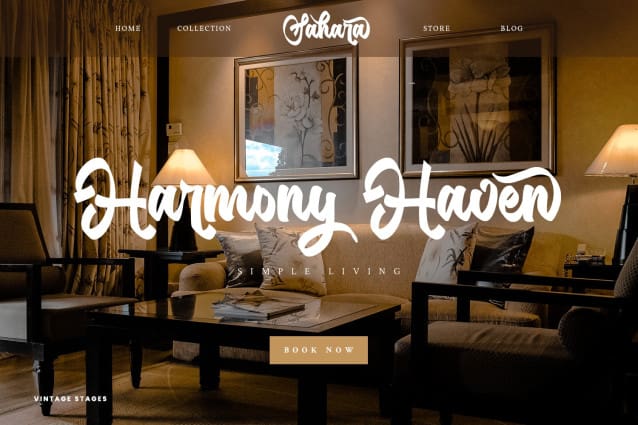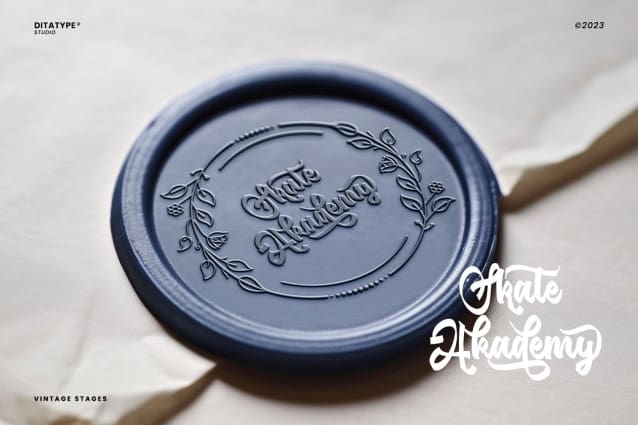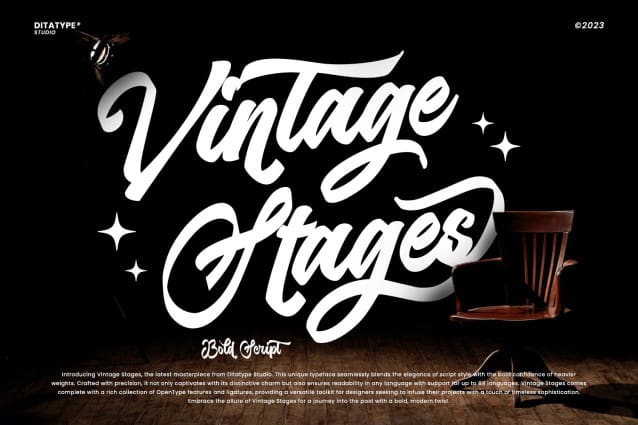
Vintage Stages Font
Vintage Stages Font is a gracefully designed script font that captures the essence of classic calligraphy with a modern twist. Crafted with a weight that is delicately balanced—not too thick nor too thin—this font offers a subtle elegance and a versatile appearance.
The consistent sizing ensures that the font maintains a rhythmic flow, resembling traditional handwriting, but with the clarity and readability required in contemporary design. The relatively low contrast of the strokes further enhances the font’s legibility while maintaining a soft and approachable feel. One of the most captivating characteristics of Vintage Stage is the inclusion of swinging ends on select letters.